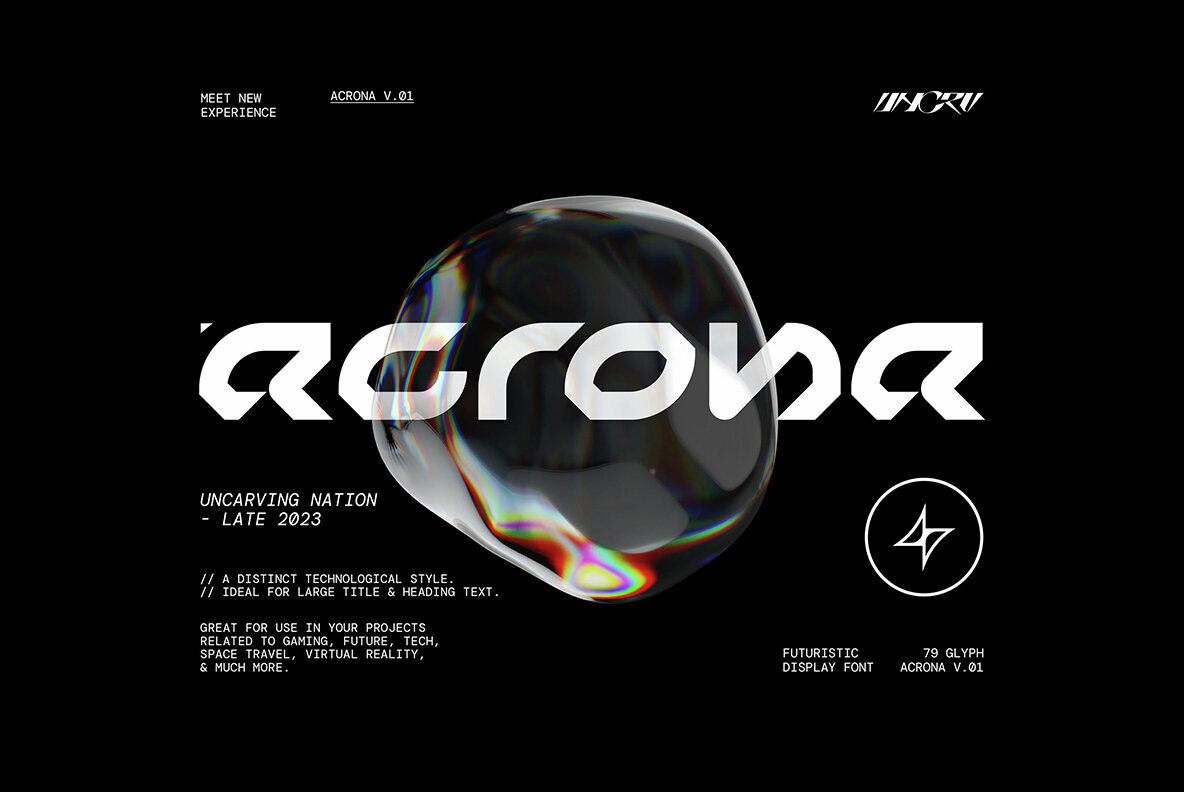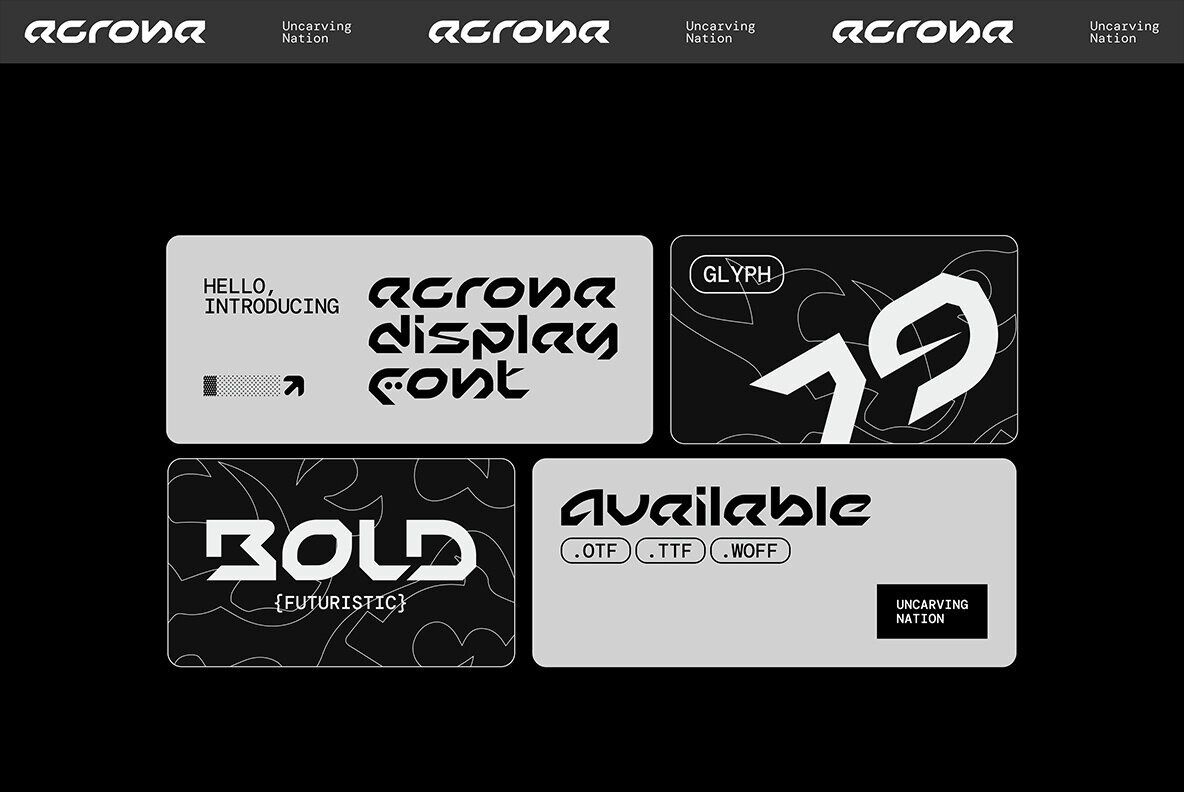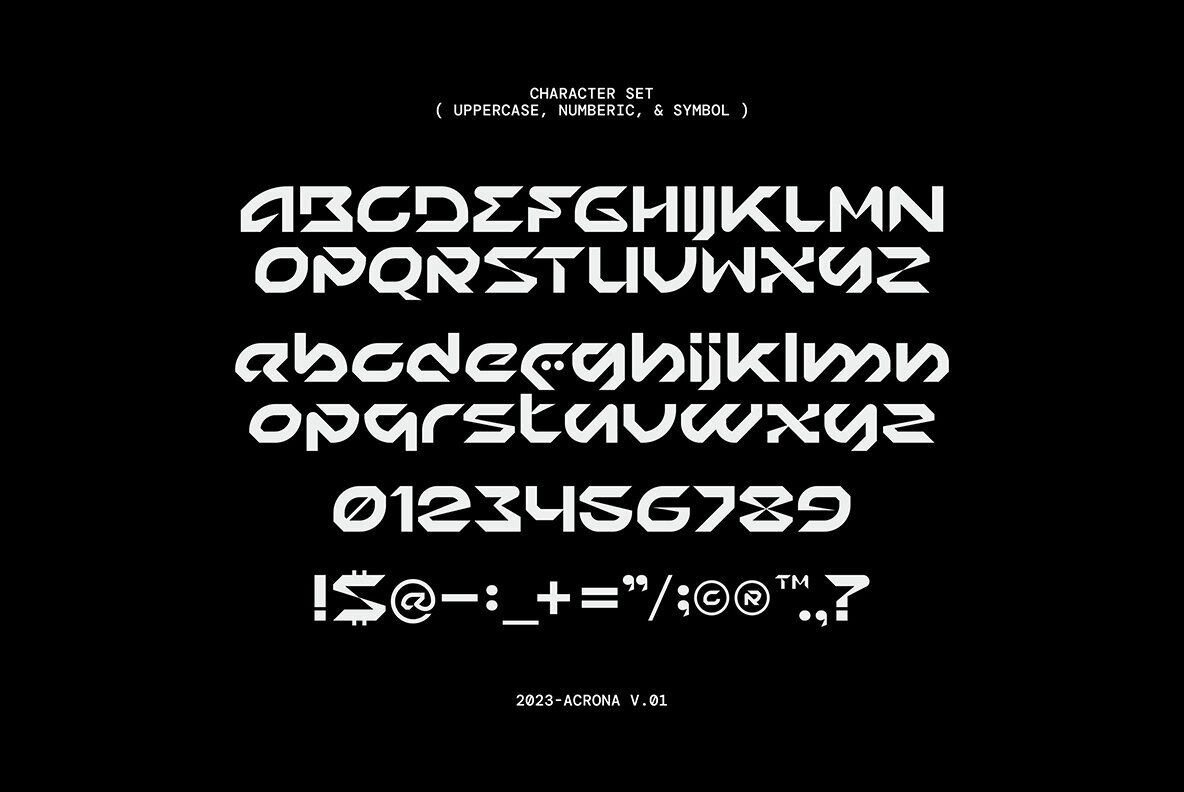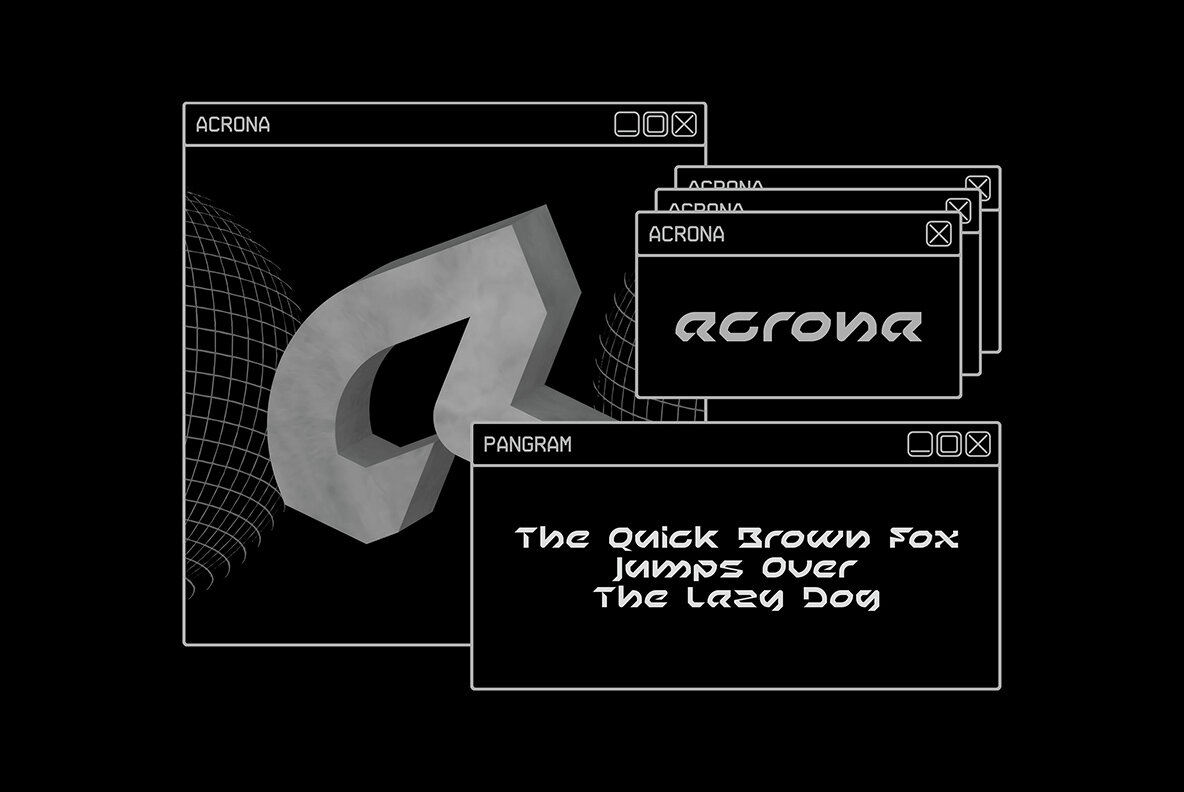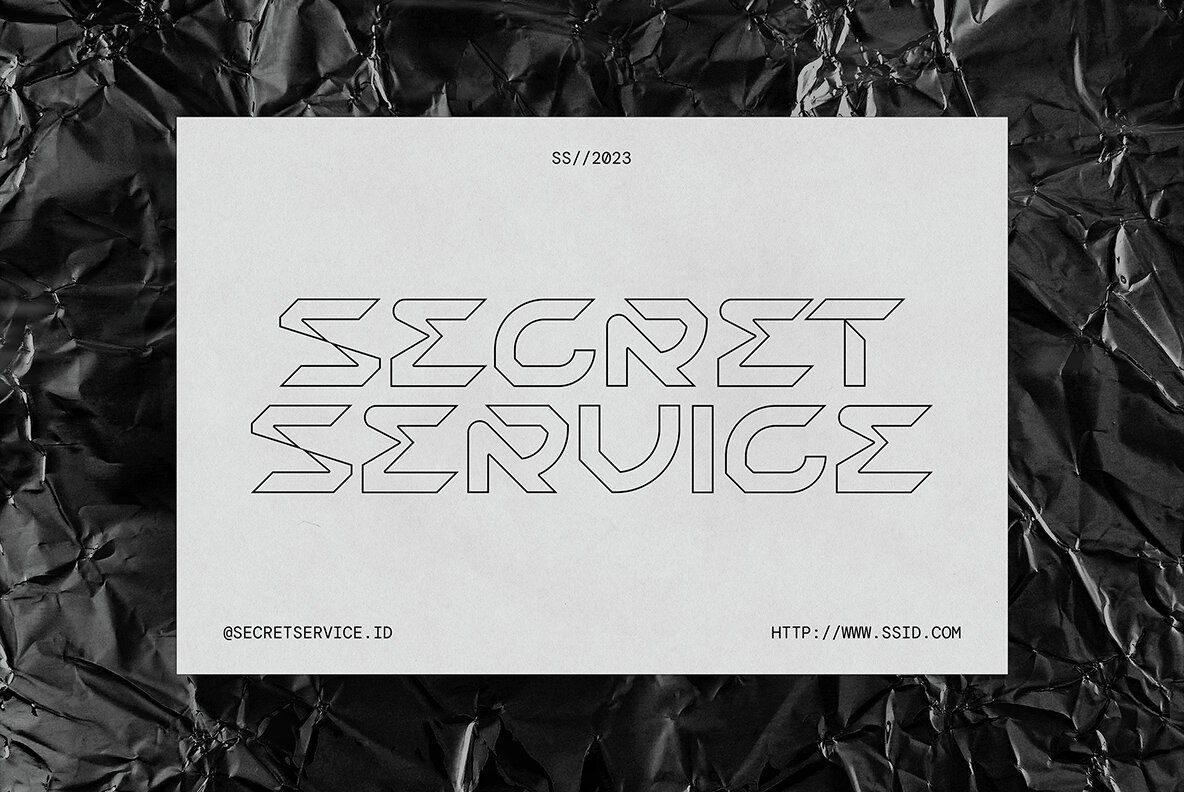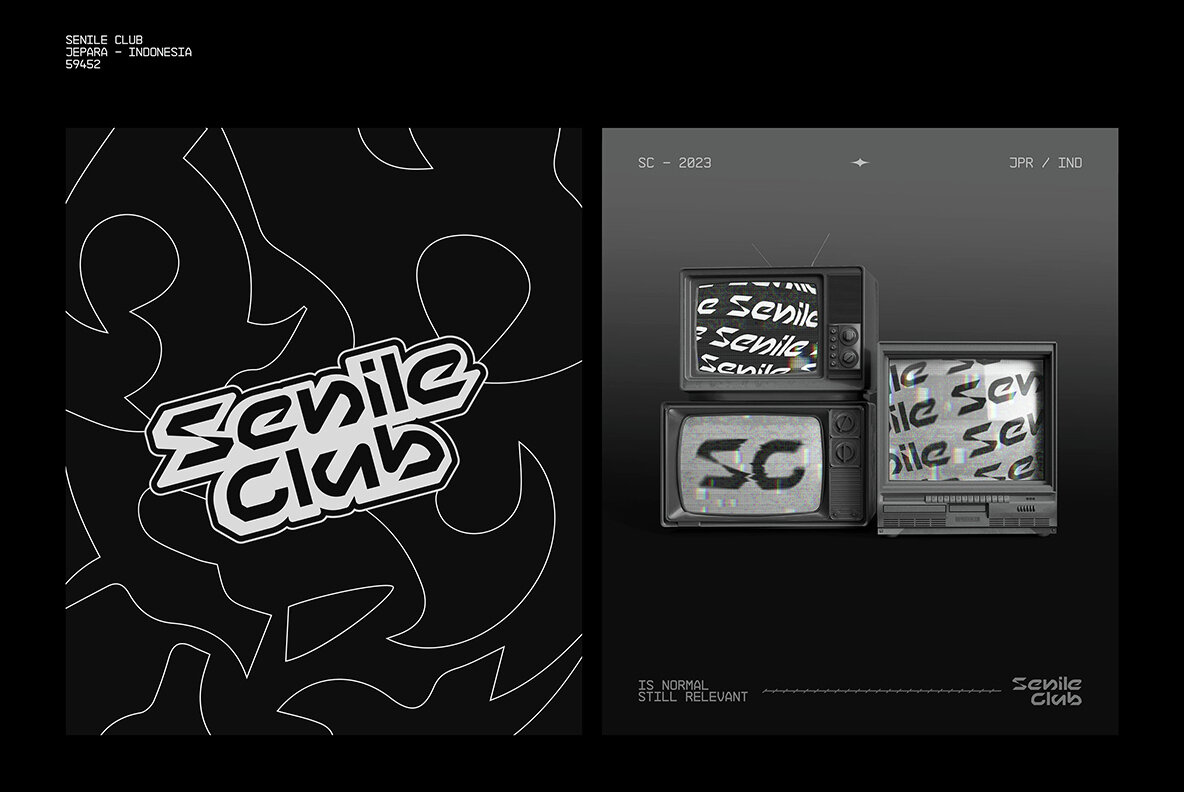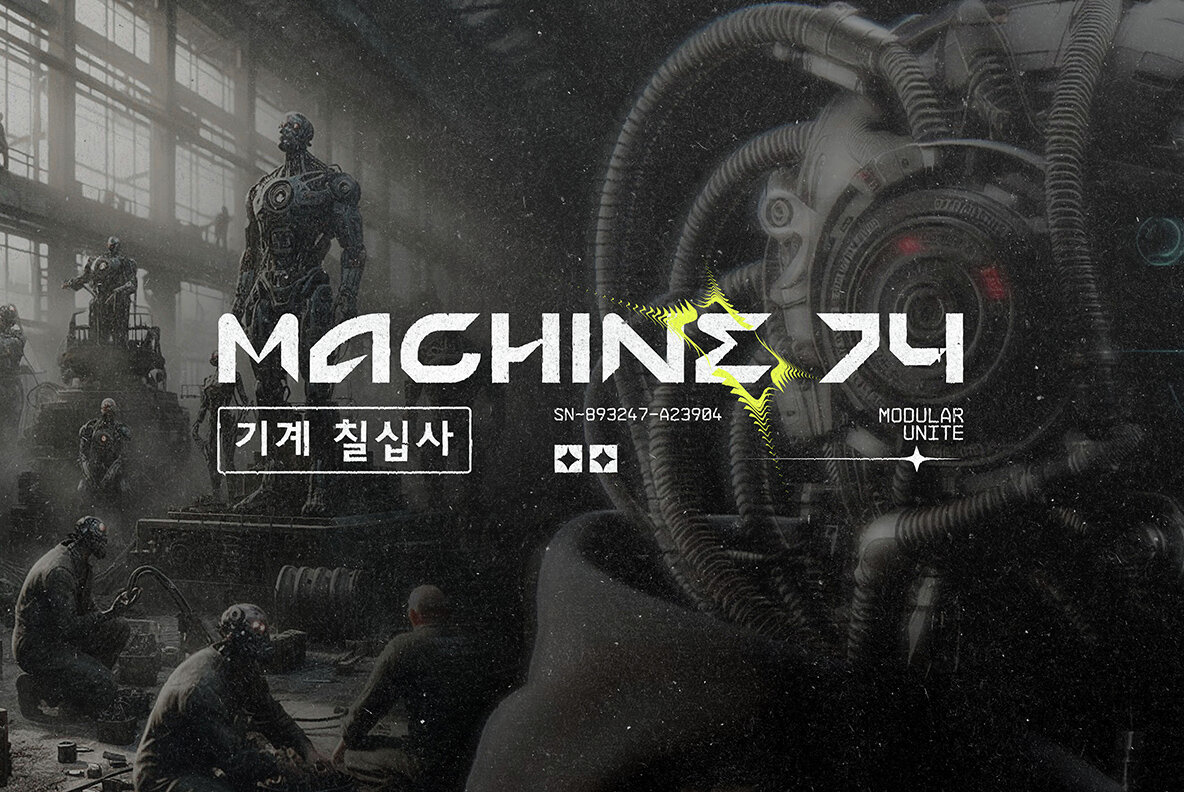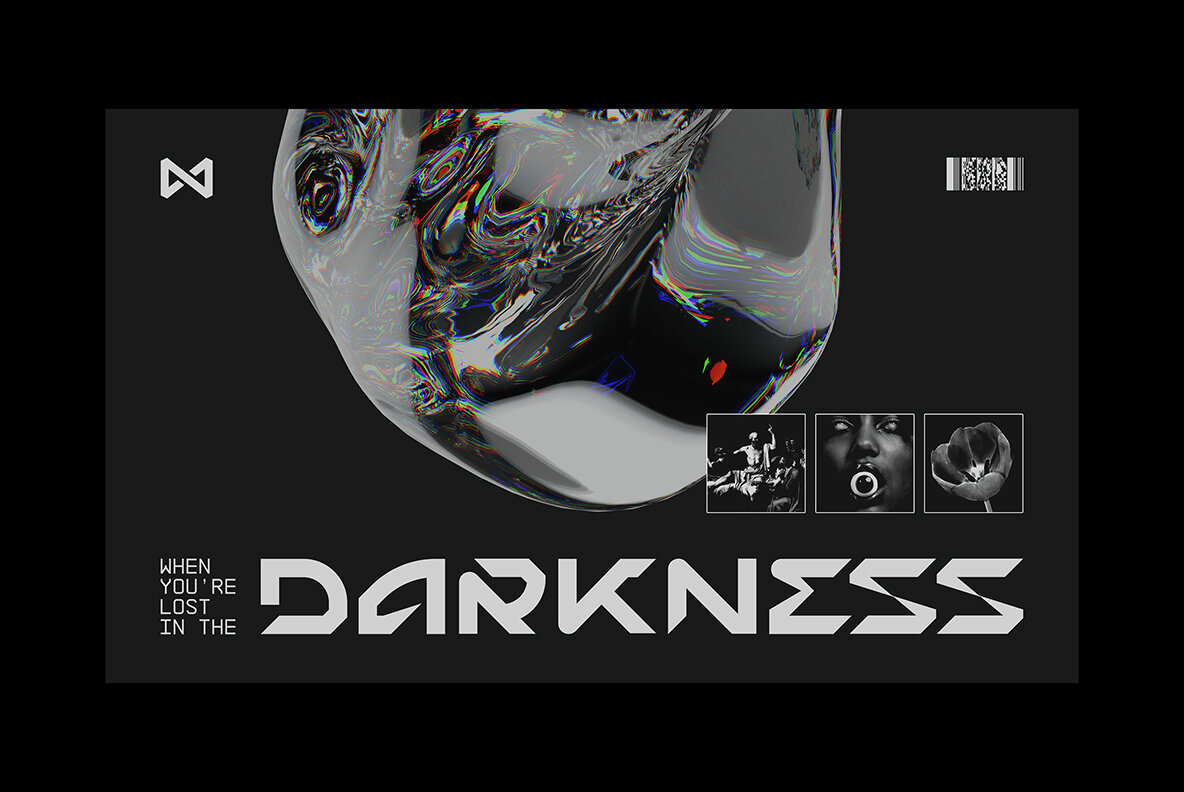
Acrona
Introducing Acrona, a bold and sleek font perfect for modern applications. Designed with a unique italic touch, Acrona strikes a balance between simplicity and distinctiveness. This versatile typeface is ideal for projects in gaming, future tech, space travel, and virtual reality.Acrona
Uncarving Nation is a type foundry based in Jepara, Indonesia, Its aim is to explore typography based on elements that the founder, as a graphic designer, finds useful and enjoyable.Over the last two years, he has discovered many new aspects of typography from various genres, which he combines to create fr...